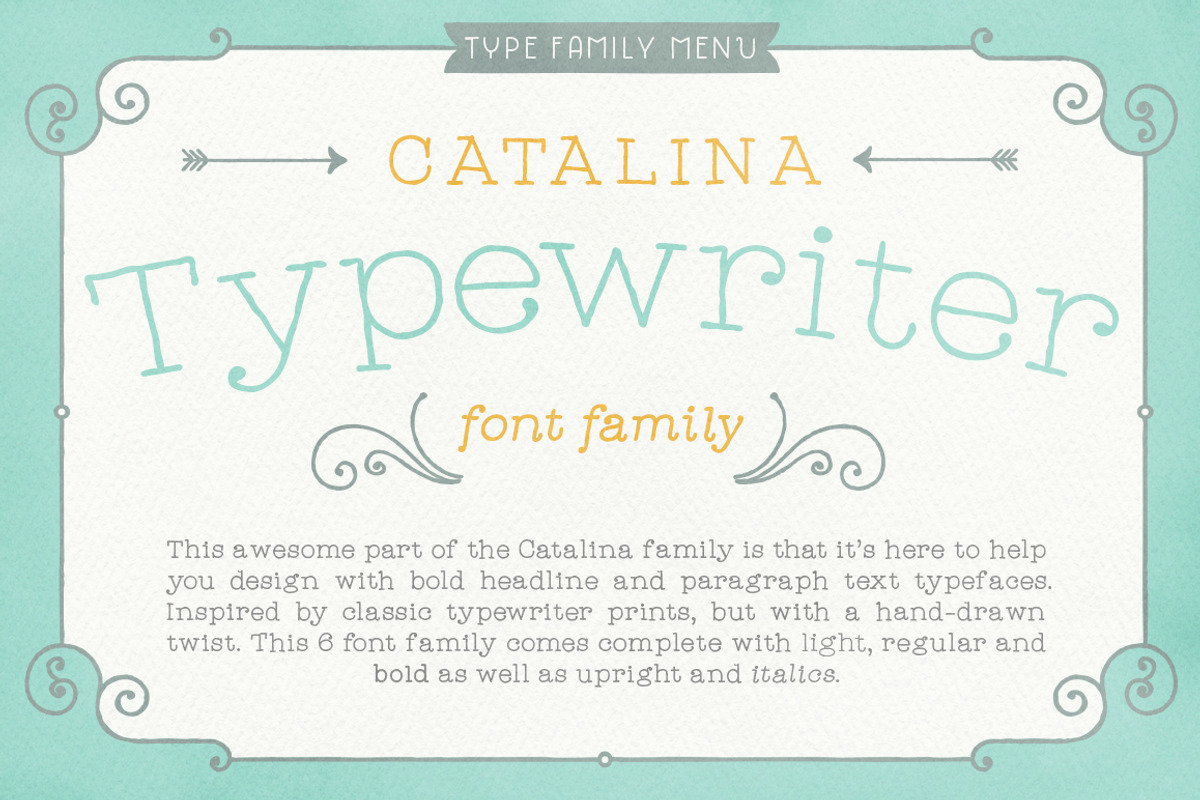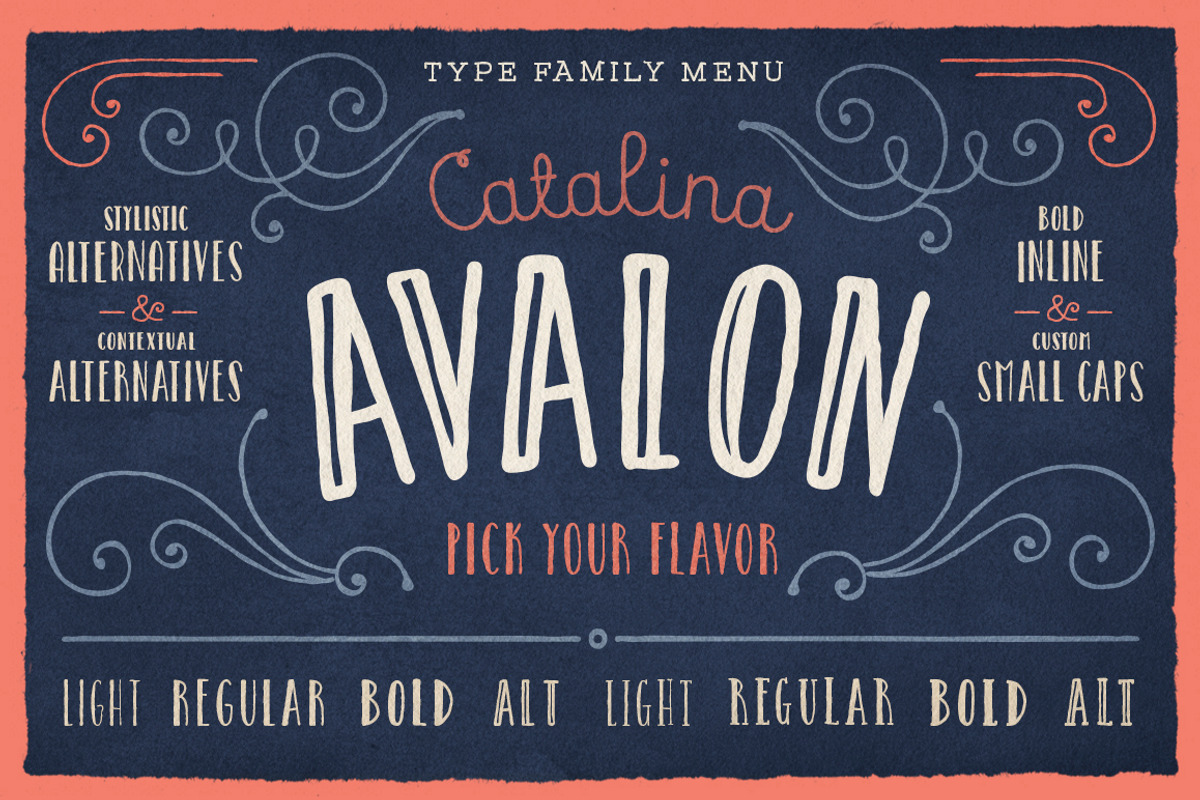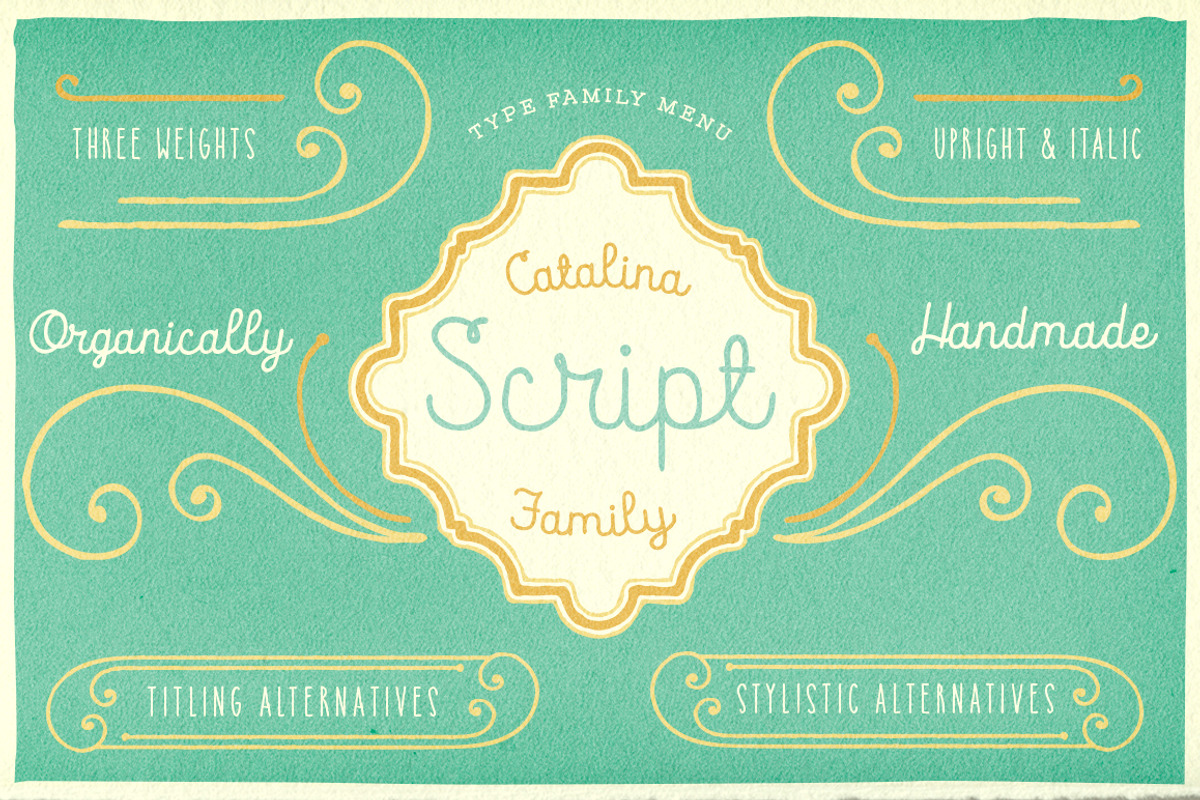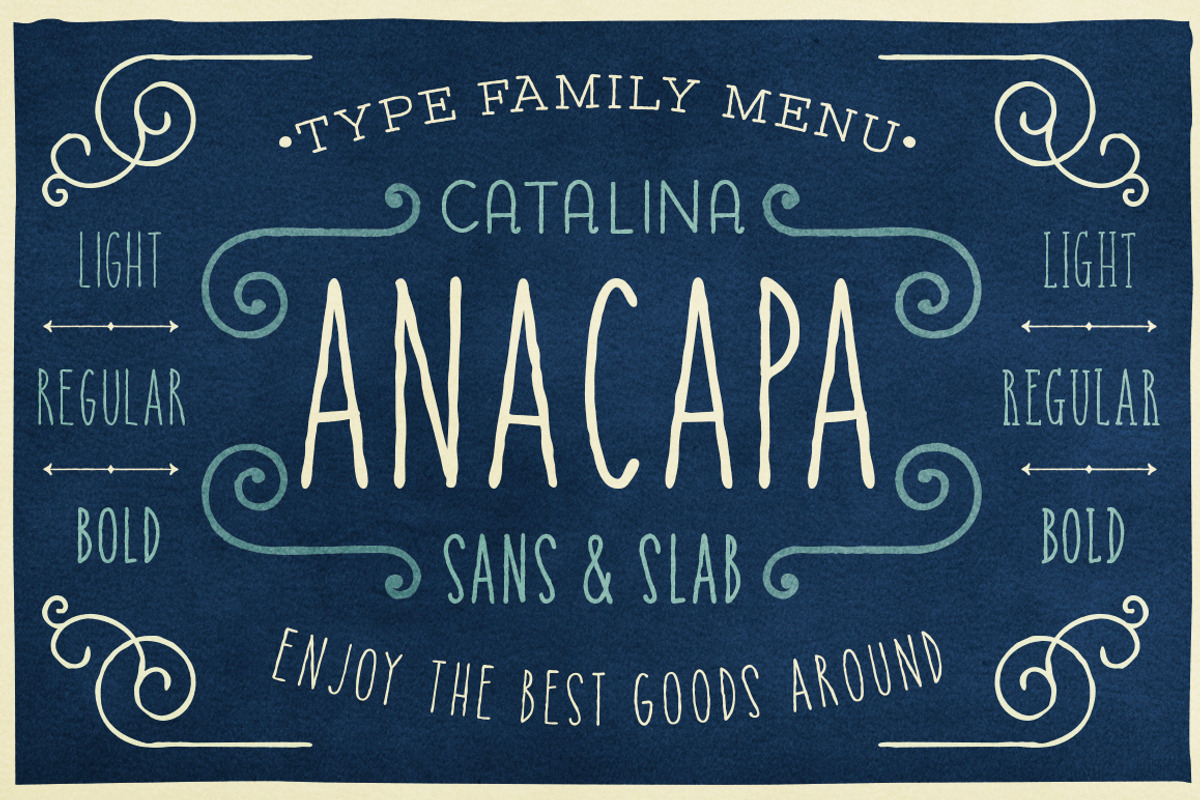
CATALINA FONT FAMILY
CATALINA FONT FAMILY by Kimmy Design is a font selected for branding, posters, packaging, typography.
- Included in this package are 5 font families, with 2 graphic ornament fonts.
- Each font family contains at least a light, medium and bold.
- It includes contextual alternatives (giving 3 versions of each letter), stylistic alternatives for select letters (A, K, P, Q, R, Y) and als
- Avalon also includes opentype features such as contextual alternatives (giving 3 versions of each letter), stylistic alternatives for select
- It's organically geometric in style and comes in ALL CAPS and lowercase, includes upright and custom italics, and has the opentype feature g
- It includes contextual alternatives (giving 2 variations to each letter) as well as stylistic alternatives for many of the capital and lower
- It has special ligatures for some letter combinations, and titling alternatives for all the capital letters.
- Catalina Flourish has all of it's options in a light and bold style, to use the light version type all lowercase letters, then to make somet